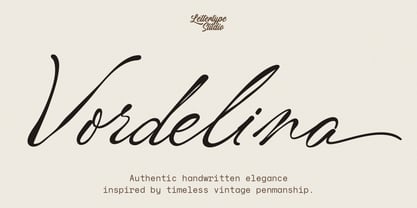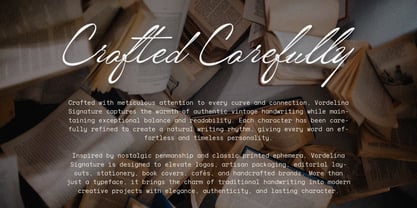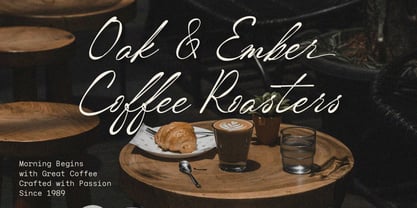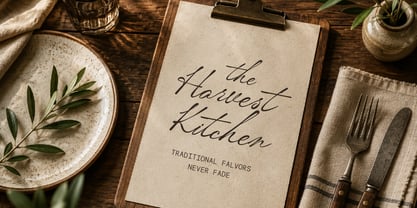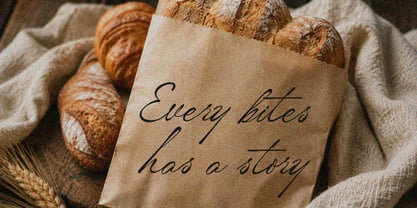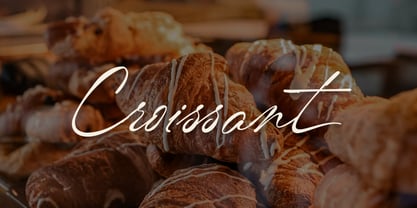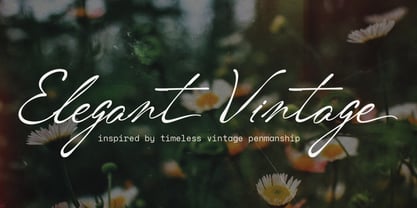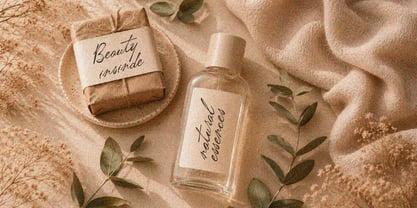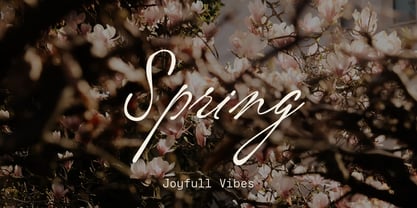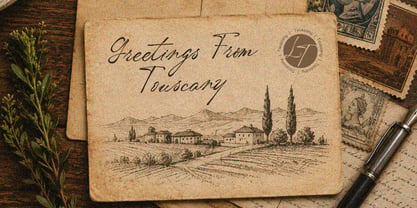
Vordelina
by Lettertype Studio
The Vordelina Font Family was designed by Diki Pradipta Tri Atmojo and published by Lettertype Studio. Vordelina contains 1 styles. More about this family
Vordelina, a vintage handwritten script inspired by authentic penmanship and timeless handwritten signatures. Carefully crafted with expressive curves, natural ink flow, and refined letter connections, every character is designed to deliver a graceful writing experience while preserving the warmth and personality of genuine handwriting.
Perfect for logos, artisan packaging, cafés, bakeries, botanical brands, book covers, stationery, invitations, restaurant menus, and editorial projects, Vordelina Signature brings nostalgic elegance into modern branding. Its flowing strokes, beautiful alternates, and natural rhythm make every design feel handcrafted, refined, and effortlessly timeless.